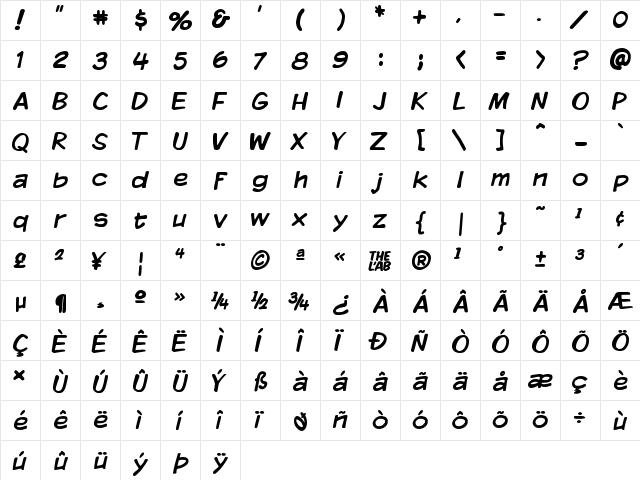
Komika Display Regular
| Designer | WolfBainX |
Design Context for Komika Display Typeface
Komika Display is built around its visual character rather than neutral utility — its distinctive forms are designed to make an impression at display sizes.
Font Pairing: Pair with a clean neutral sans-serif for body copy to let Komika Display's character lead without overwhelming the composition.
Pro Tip: Treat Komika Display as the centrepiece of your typographic hierarchy. One strong heading set in a decorative face can carry an entire layout.